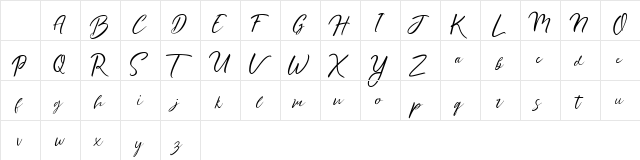
Complete Ralyne Demo Regular glyph index. Displaying only characters natively supported by Ralyne Demo Regular font.
Ralyne Demo is a composed and adaptable typeface that performs quietly and consistently across a wide range of design contexts.
Pro Tip: Use Ralyne Demo in both headline and body roles to test its range before committing to a single application.